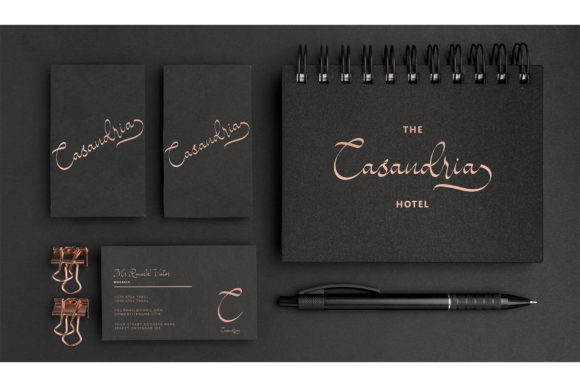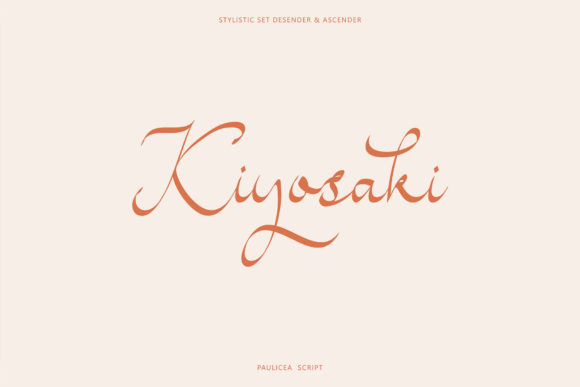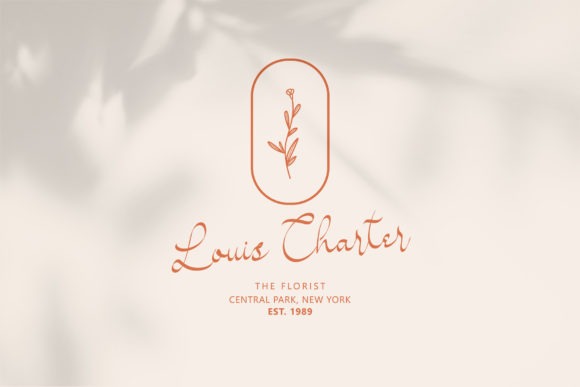
“Paulicea” emerges as a delicate, classy, and flowing script font, enchanting with its graceful curves and well-balanced characters. This font is a harmonious blend of sophistication and charm, poised to enhance a diverse range of designs. With its PUA encoding, seamless access to all the glyphs and swashes is guaranteed, allowing your creative ideas to flow effortlessly.
Visualize “Paulicea” as a brush that paints your designs with finesse and elegance. Its flowing strokes and meticulously designed characters infuse an air of beauty, transforming your projects into visual masterpieces that captivate the eye. As you incorporate this font into your creations, you’ll embark on a journey where your concepts evolve into captivating visual narratives.
Beyond its visual allure, “Paulicea” captures an essence of authenticity and creativity. Its script nature imparts a touch of uniqueness, turning your designs into more than just visuals – they become expressions of artistic finesse and originality.
“Paulicea” stands as an indispensable tool in your design toolkit. Its versatility ensures seamless harmony with various styles, themes, and intentions. Whether you’re crafting an exquisite logo, weaving a compelling narrative, or enhancing the elegance of your branding, this font elevates the resonance of your message.
In a world where design communicates emotions and stories, “Paulicea” becomes your medium for crafting designs that resonate deeply and leave an indelible mark. Let its delicate strokes be the artistic flourishes that enhance your creations, infusing them with a touch of elegance and authenticity. Embrace the enchanting allure of “Paulicea” and watch as it transforms your projects into captivating showcases of refined creativity, breathing life into your design aspirations.